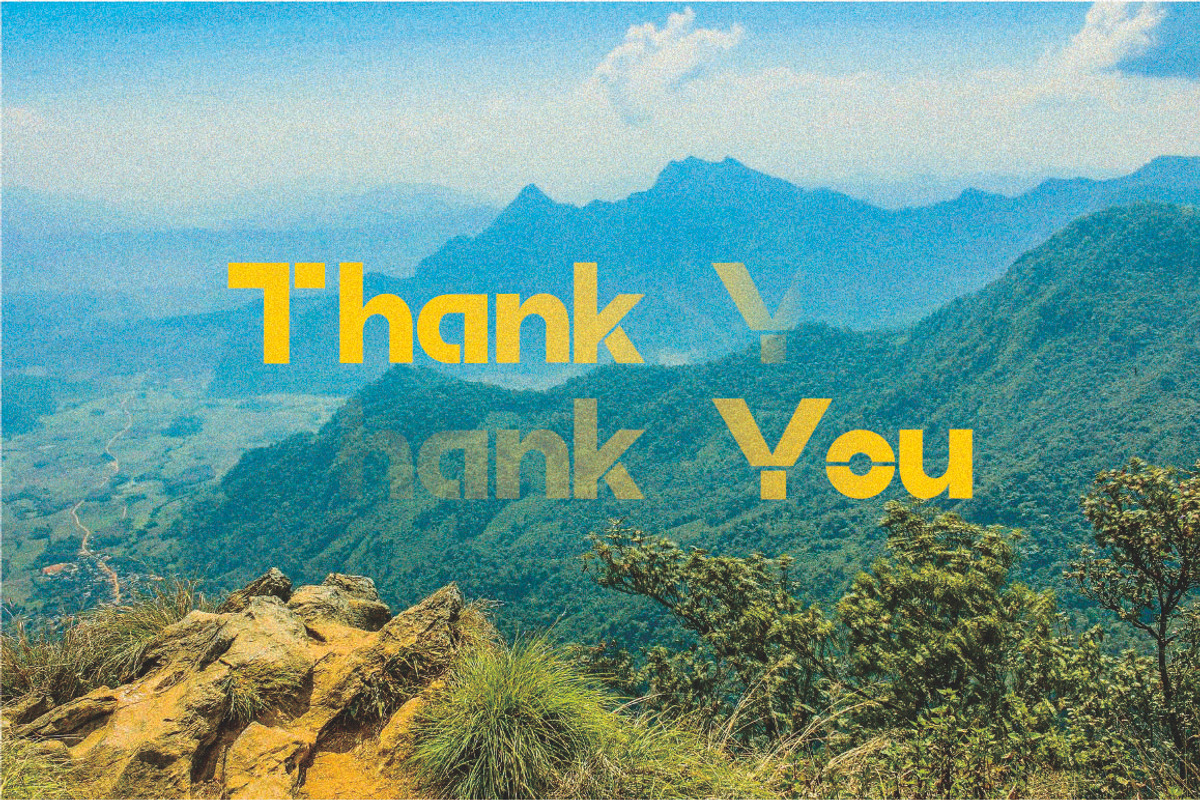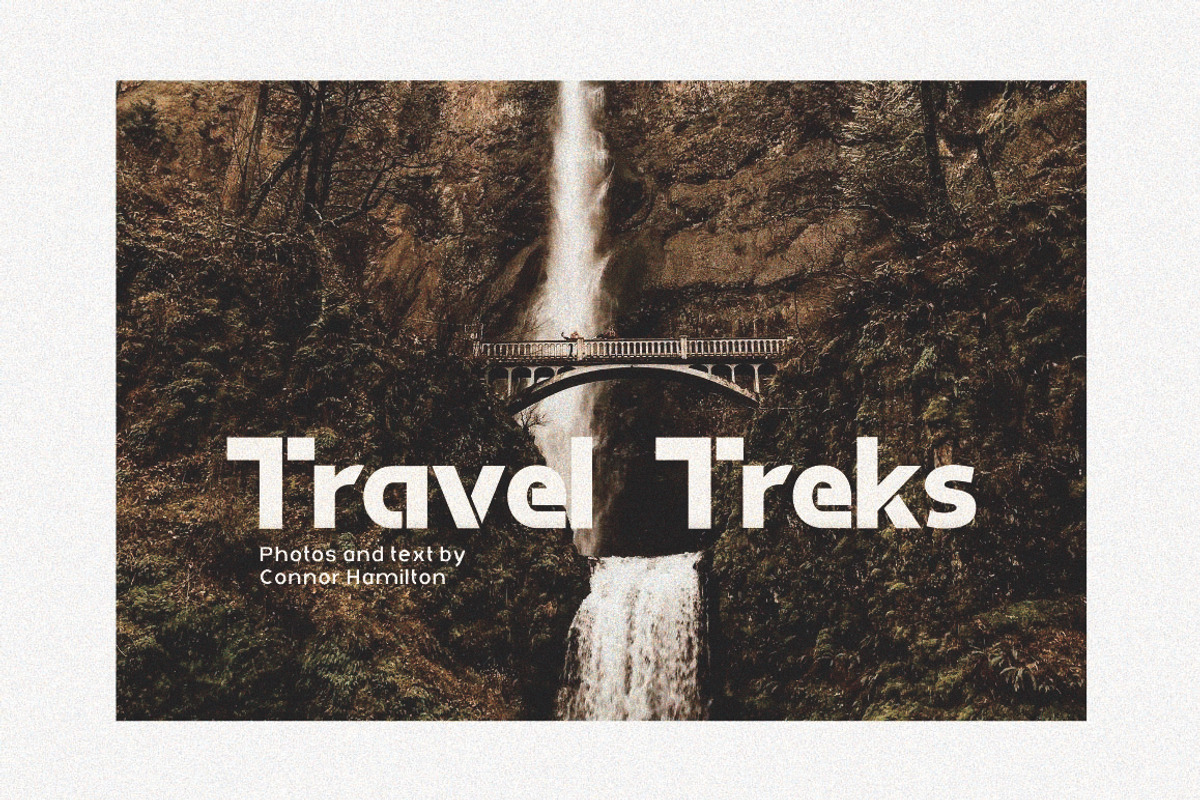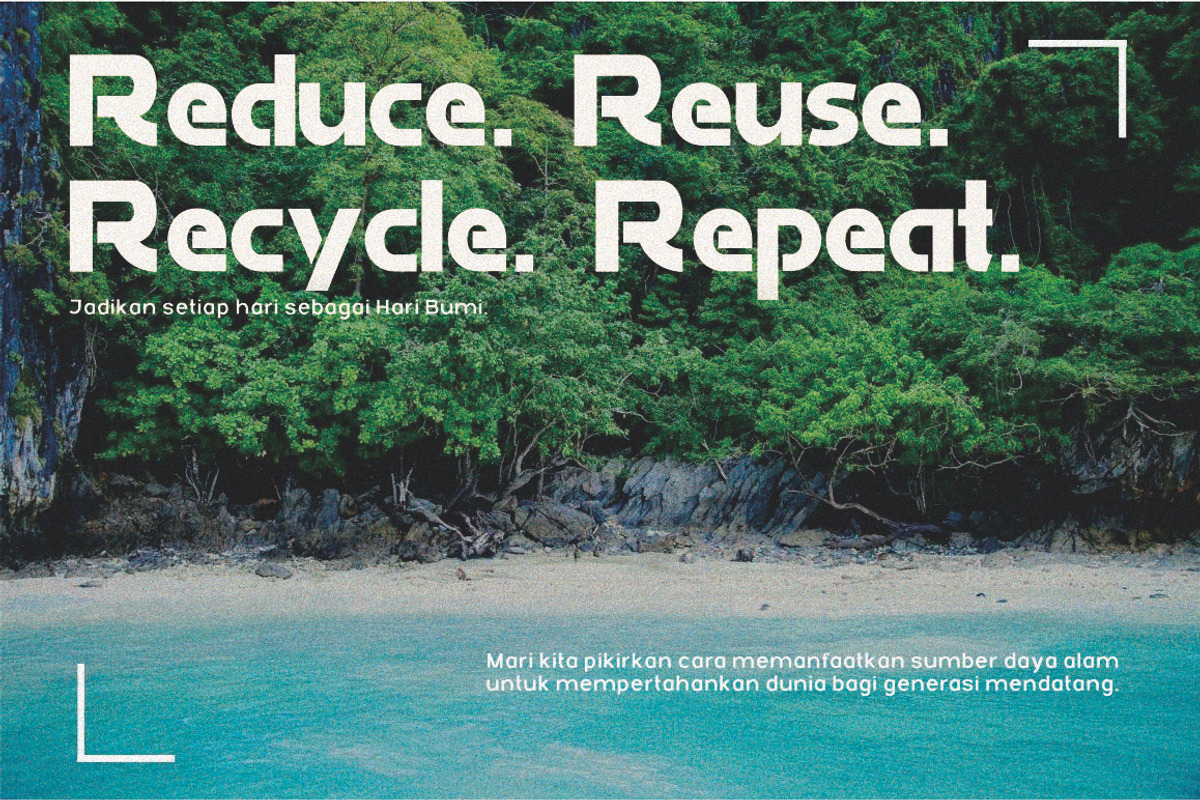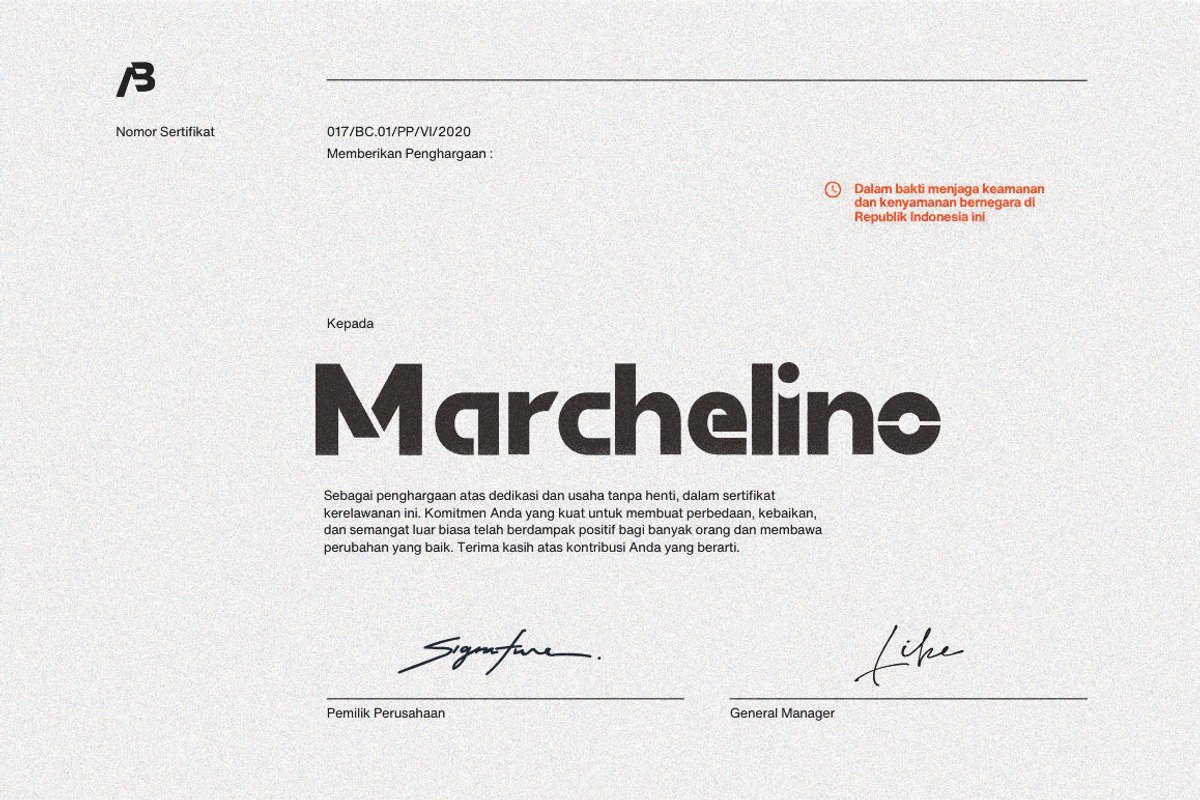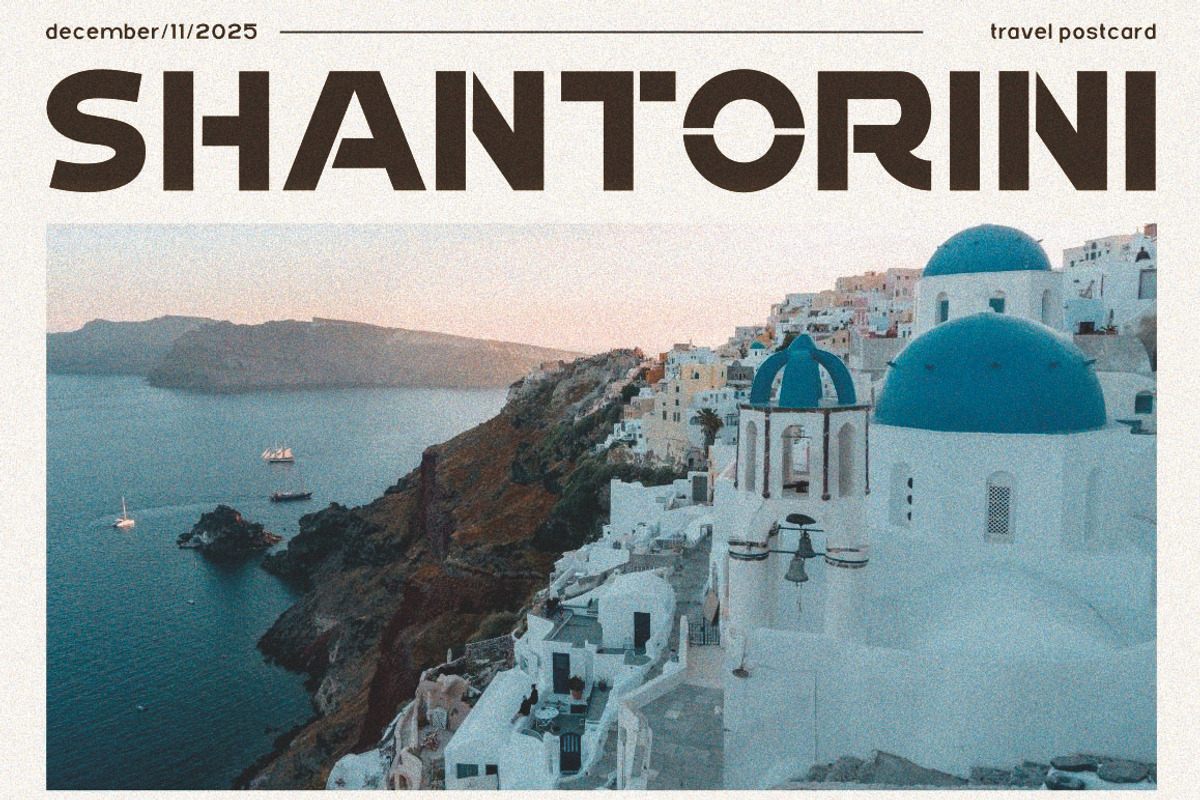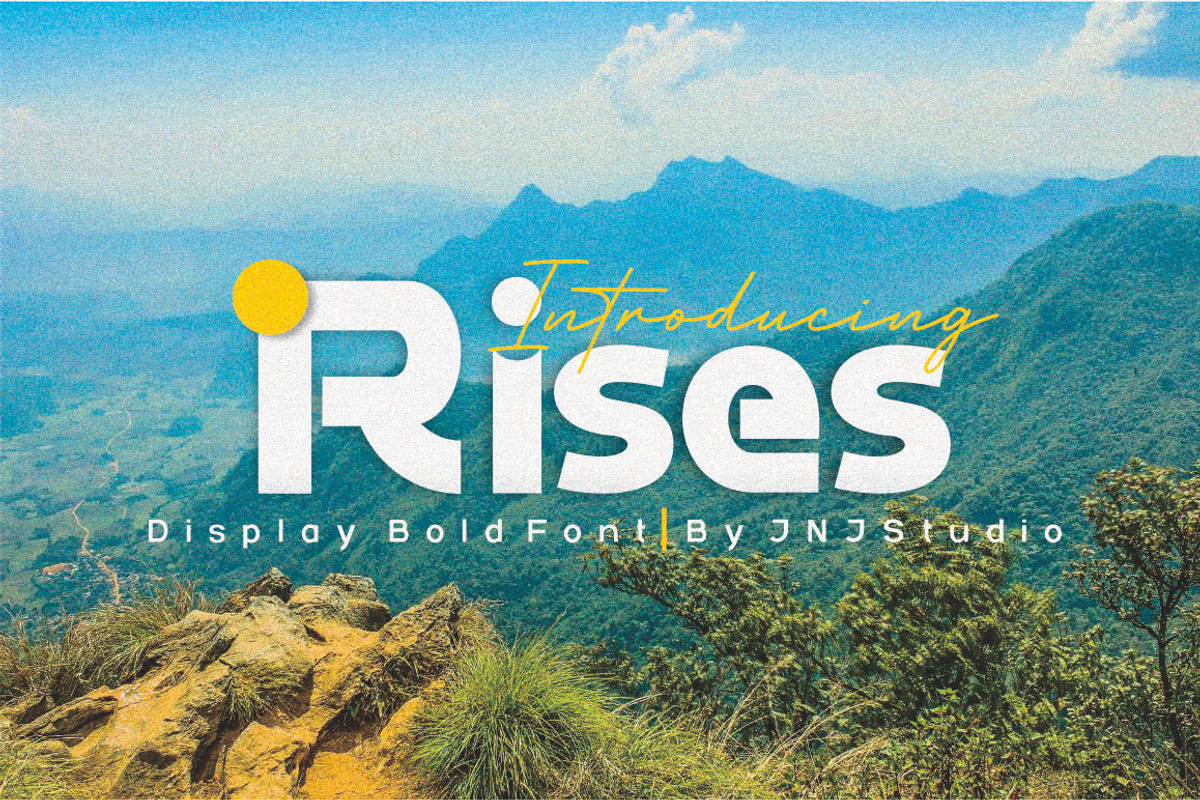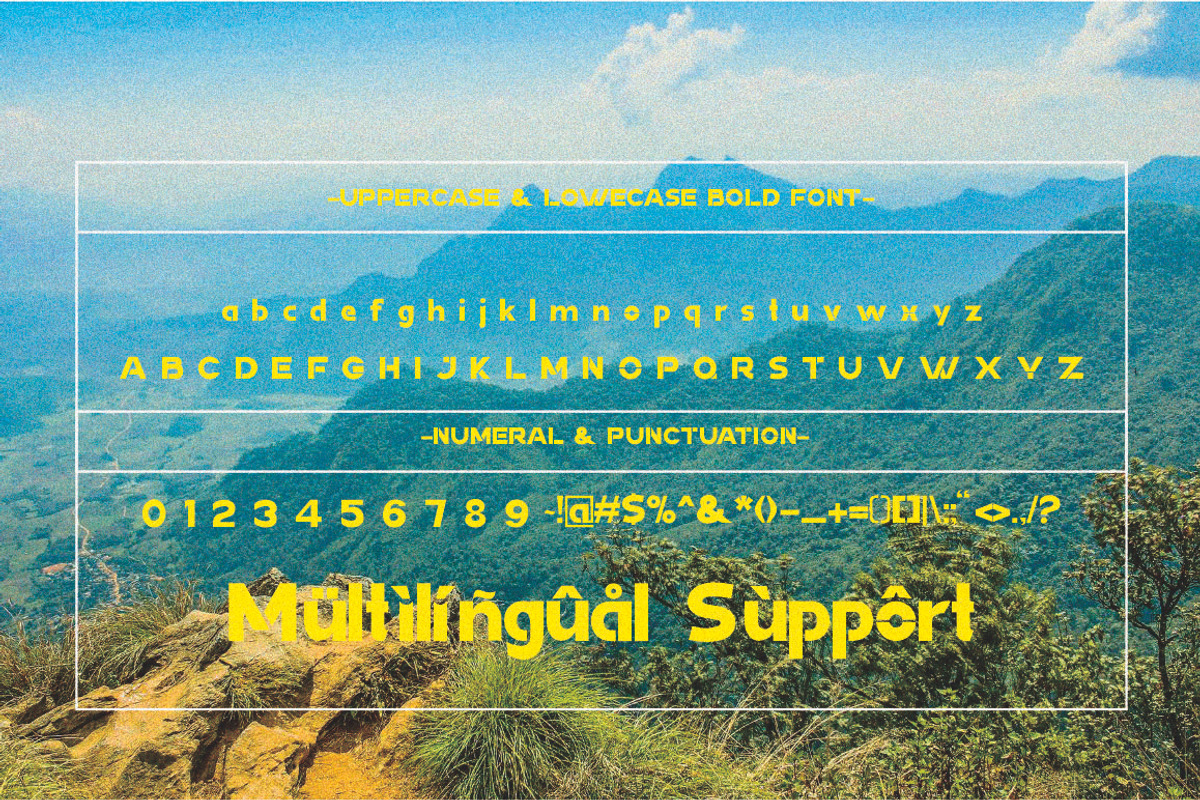
Rises Display Bold Font
Introducing "Rises" is a powerful Display Bold typeface that commands attention with every letter. Designed for maximum impact, Rises features thick strokes, sharp angles, and a confident structure—perfect for headlines, posters, logos, and branding that need to stand tall and make a statement. Its bold presence radiates energy and modernity, while its clean edges ensure clarity and legibility even at large sizes. Whether you're crafting a futuristic title or a daring visual identity, Rises brings strength, boldness, and unmistakable style.